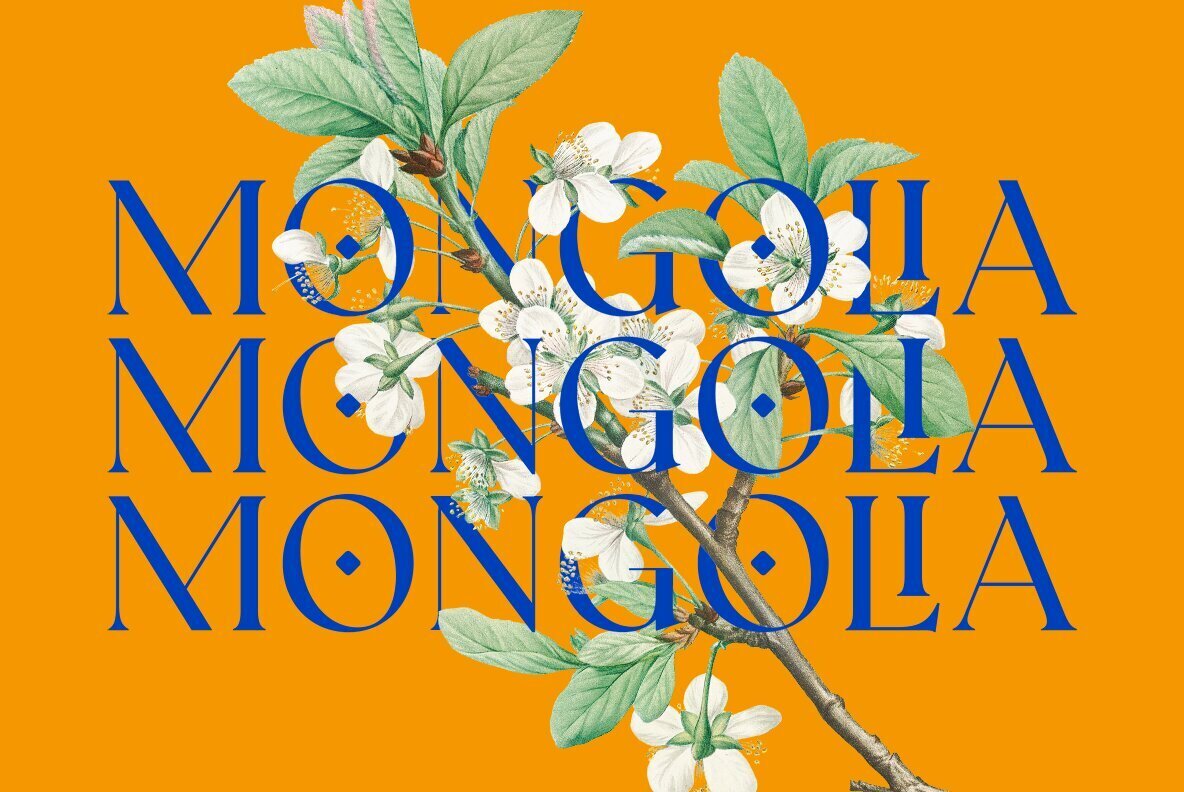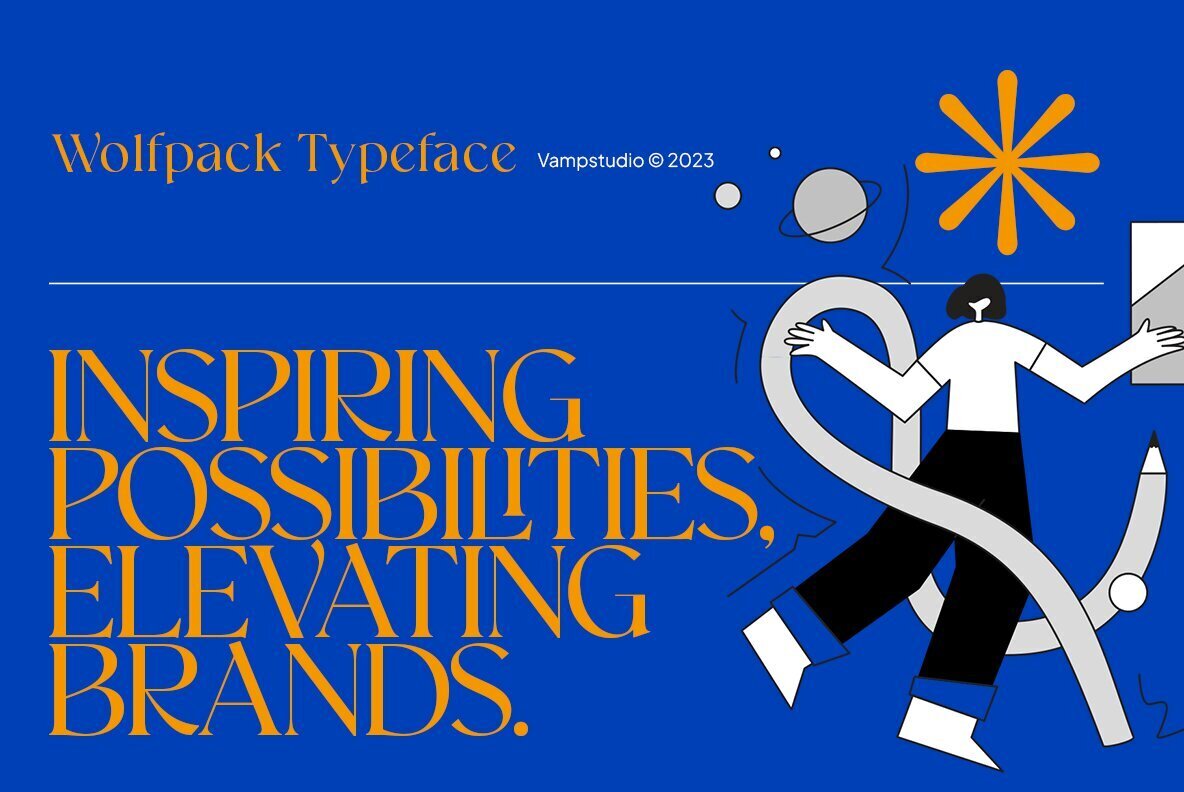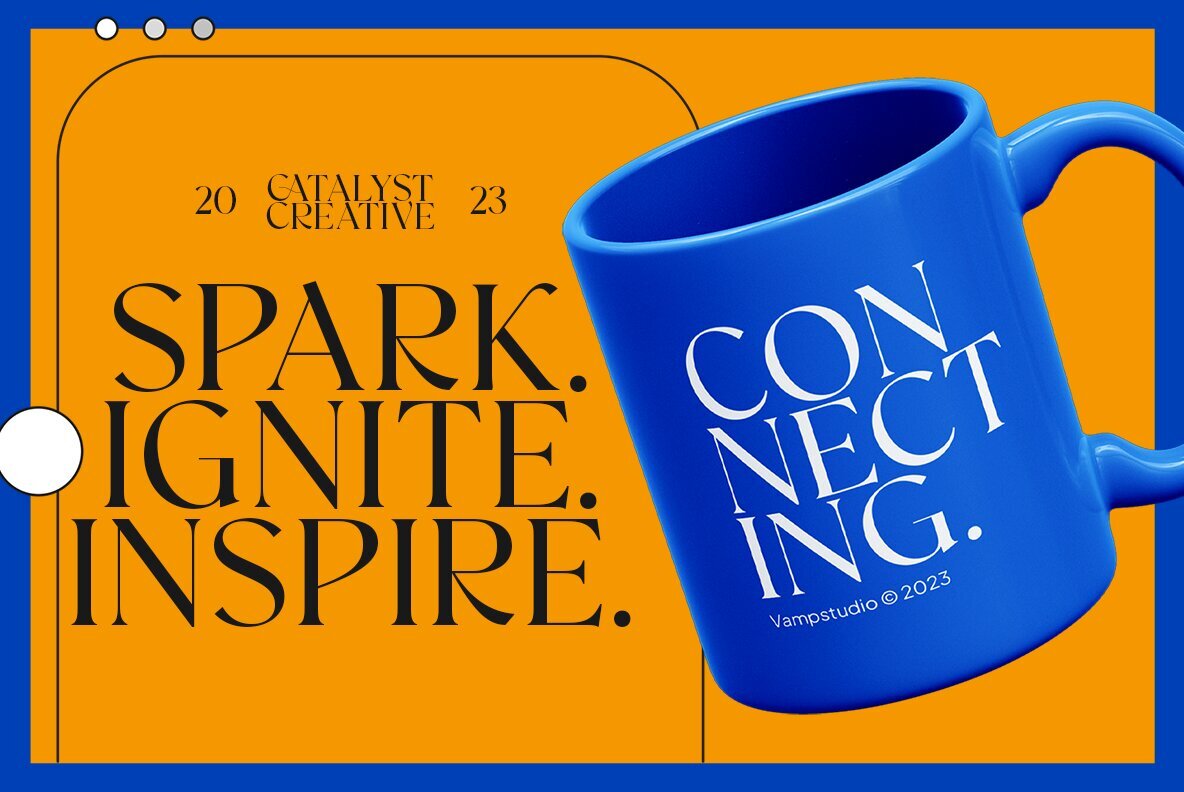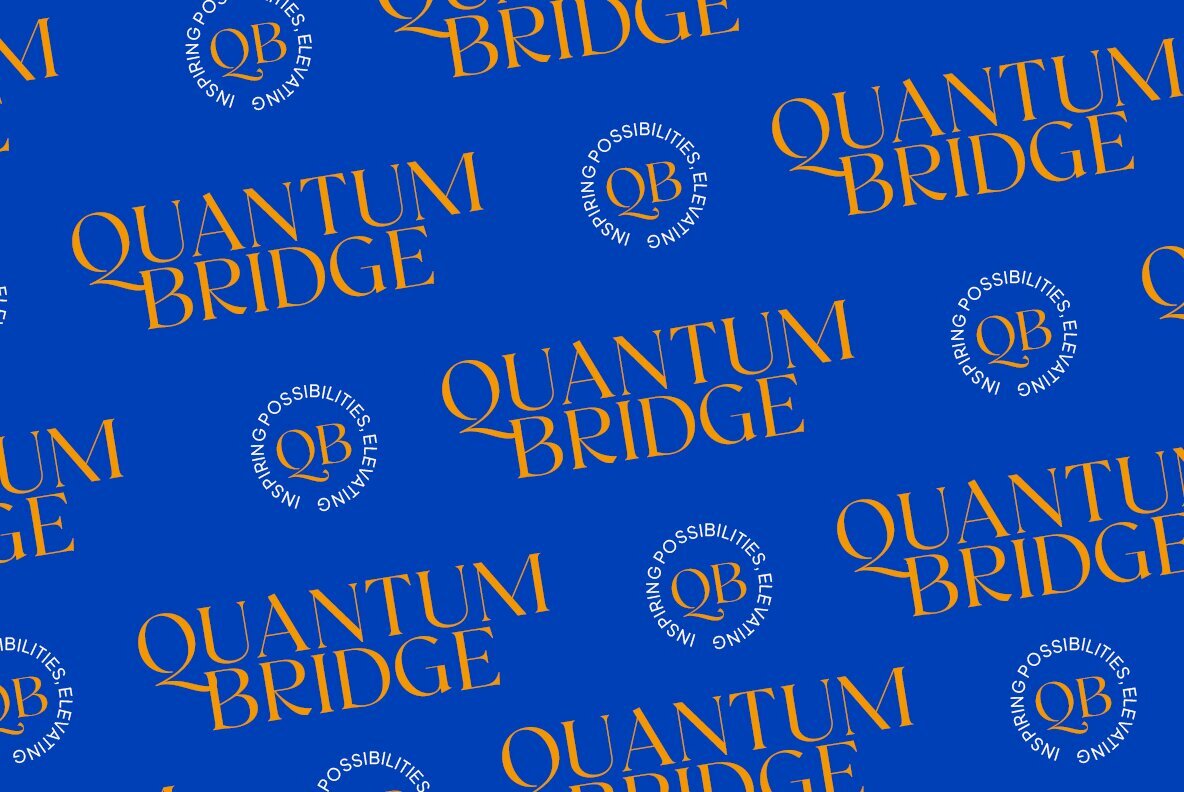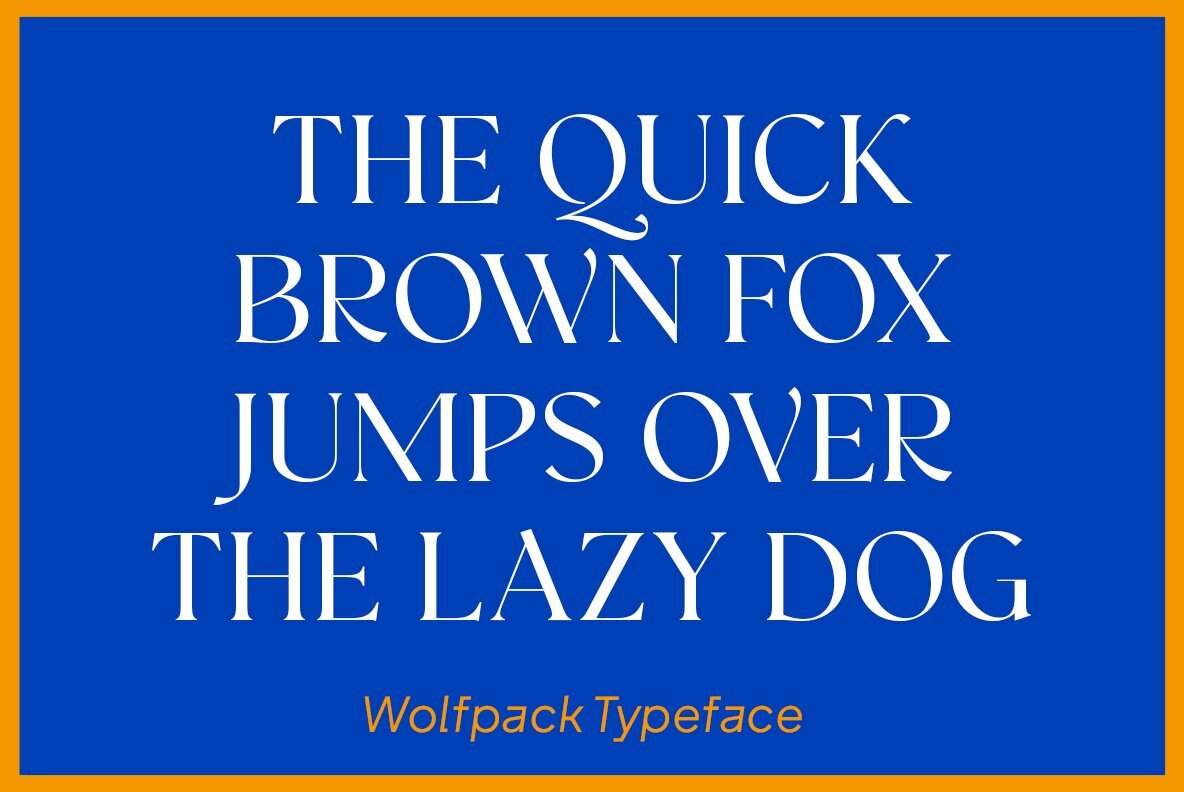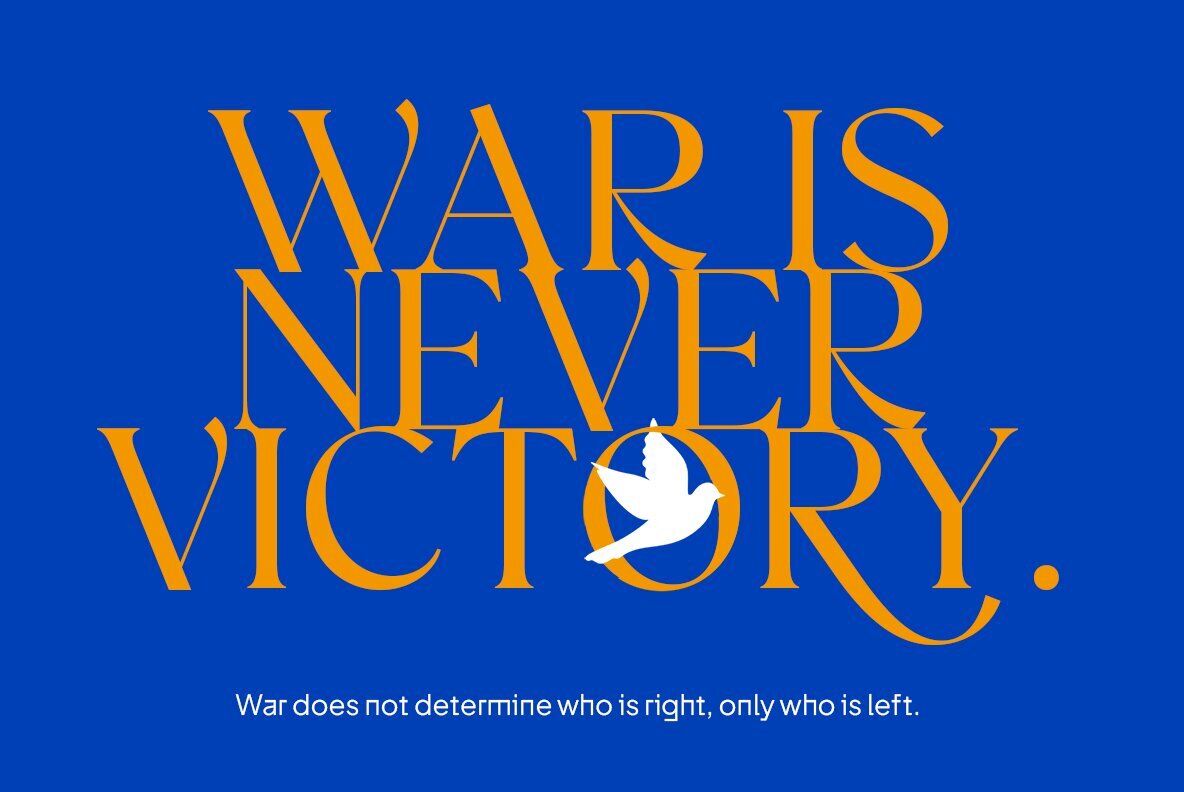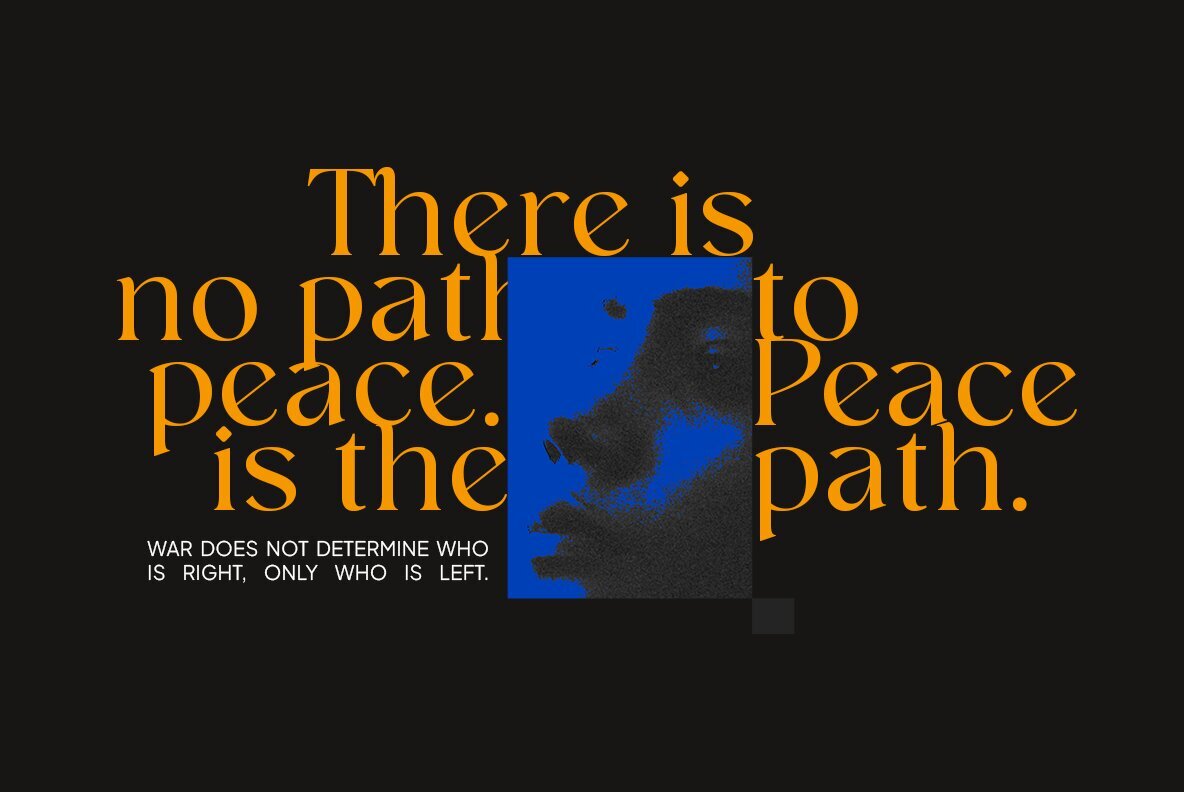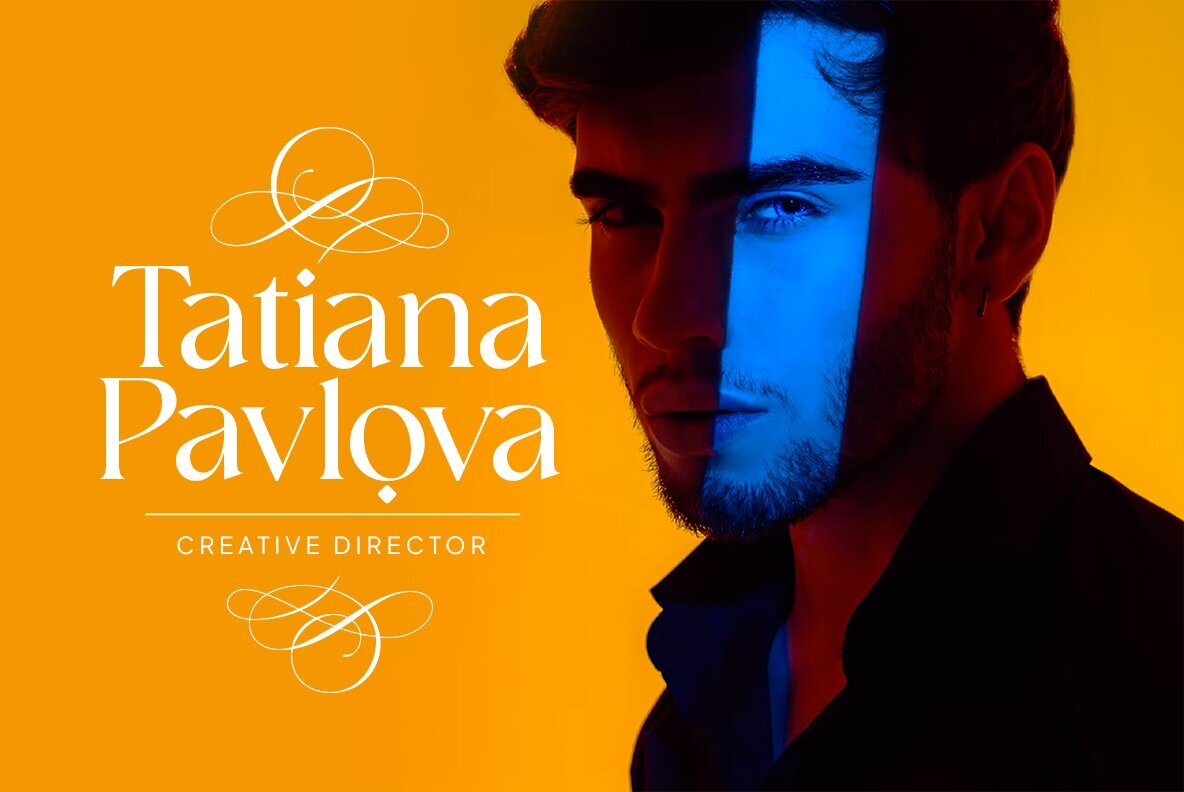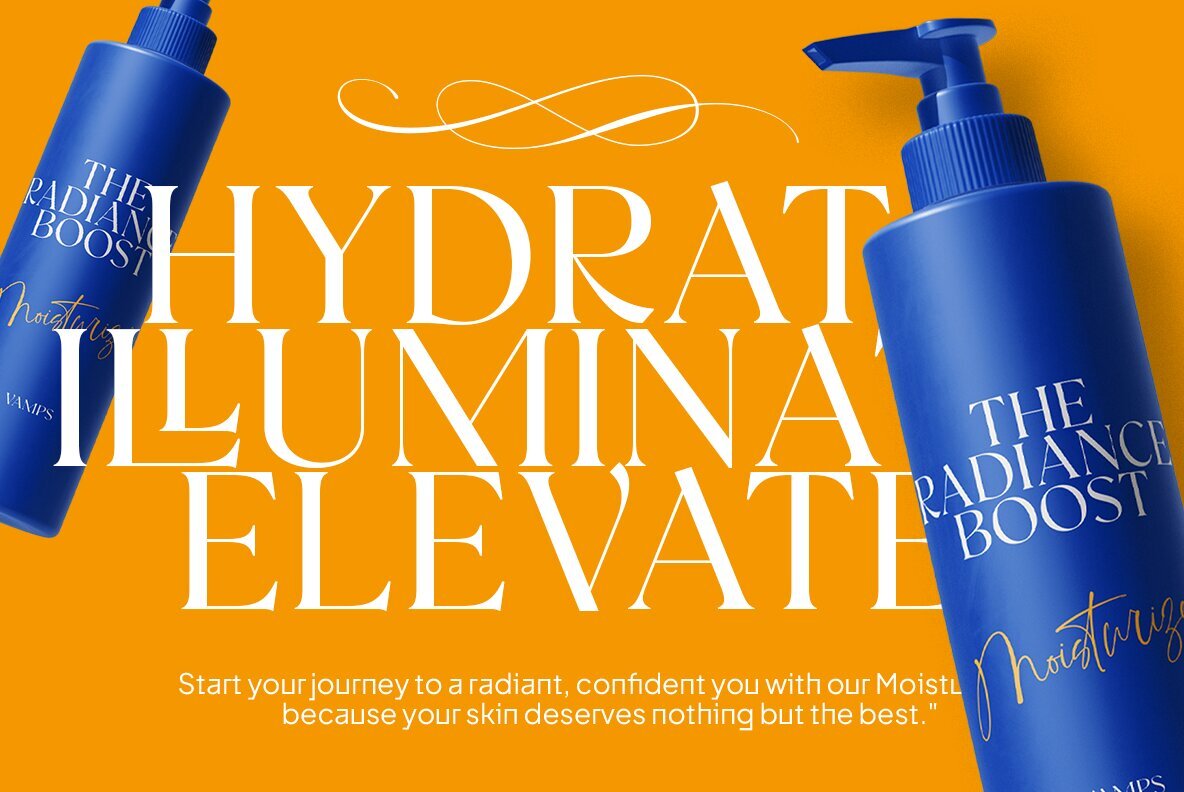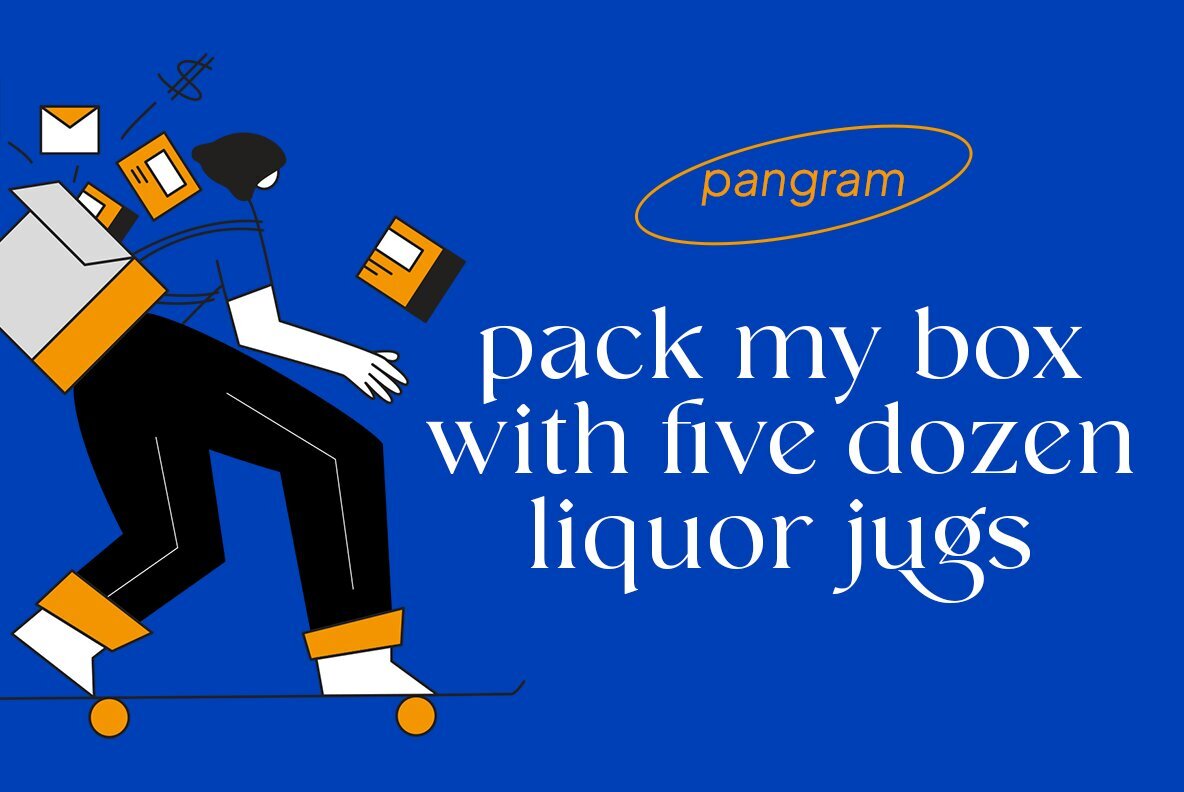
Wolfpack Font
Wolfpack Regular
Explore "Wolfpack," a serif font blending elegance with luxury, perfect for enhancing your design projects with sophistication.Wolfpack: Elegance and Luxury in Serif Typography
Features of Wolfpack